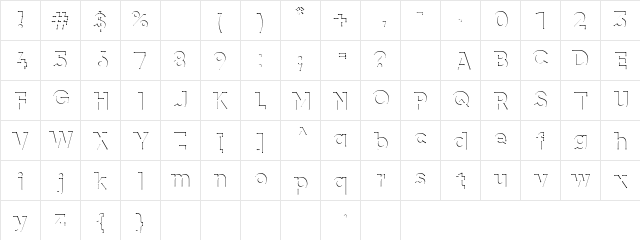
| Designer | Aleksandr Ananin |
Design Context for airment Typeface
airment offers clean, dependable letterforms without strong stylistic allegiance, making it a practical choice for designers who need flexibility.
Pro Tip: Pair airment with a font of contrasting weight or personality to build a more expressive typographic hierarchy.